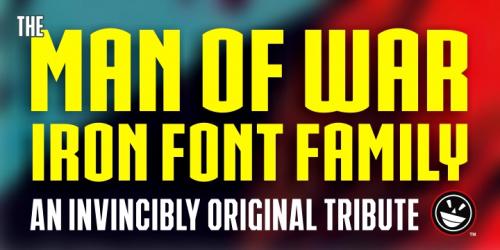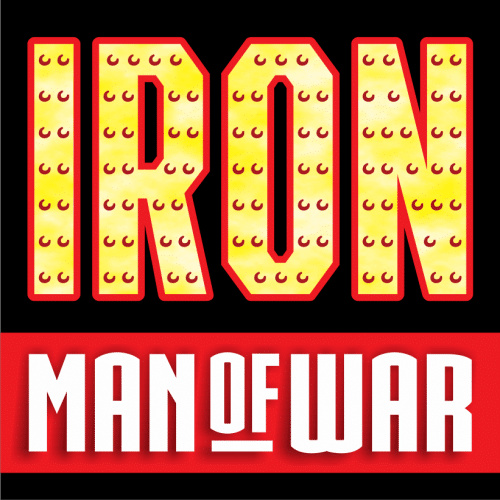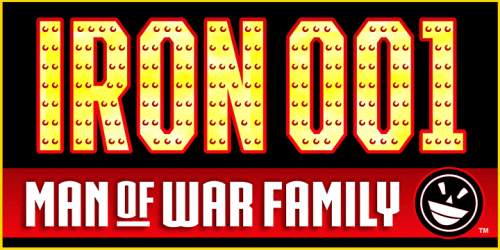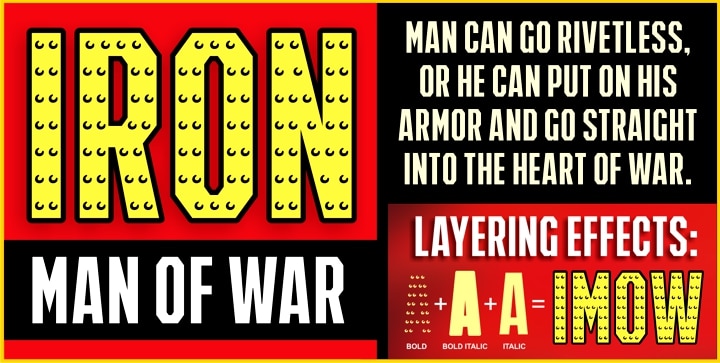
Iron Man Of War Font comes complete with 2 ferrous versions of an industrialistic face that will leave your layouts riveted in place and armored up for war.
You’ll even enjoy a layering effect for all those rivets, plus a full range of lowercase characters, foreign sets, alternates, and more.